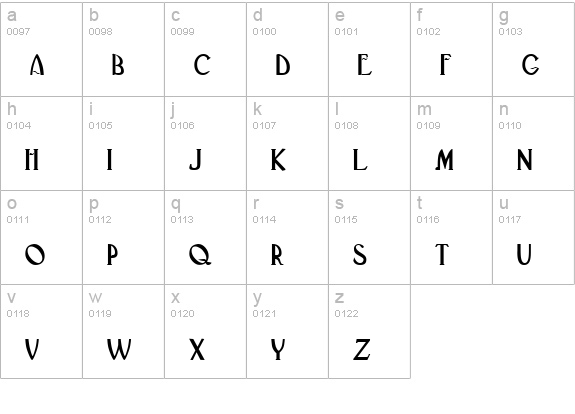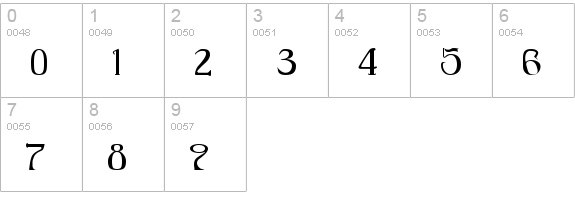
Deco Normal is the standard, neutral variant in the Deco typeface family \xE2\x80\x94 well suited to general body text, paragraphs, and standard typographic work.
Deco Normal font is a sleek and modern typeface that exudes elegance and sophistication. Its clean lines and geometric shapes make it perfect for a wide range of design projects, from branding to editorial design. The font's balanced proportions and distinctive style set it apart, making it a versatile choice for both digital and print applications. Best of all, Deco Normal font is available for free download at FontsMarket.com. This means that you can easily access this stunning typeface and incorporate it into your projects without any additional cost. Don't miss out on this opportunity to enhance your designs with the beauty and versatility of Deco Normal font - download it today and elevate your creative work to new heights.